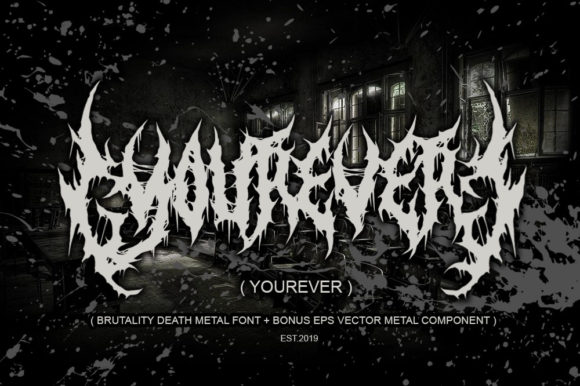
Behold Yourever Font, the Blackletter typeface that will unleash your inner darkness and bring your horror and metal designs to life! Picture this: your designs adorned with Yourever's sharp edges and menacing curves, evoking an atmosphere that's both spine-chilling and captivating. Let the power of Yourever's dark strokes and wicked details transport your audience to a realm of untold horror and heavy metal madness.
With Yourever, your designs will command attention, demanding respect and inspiring awe. Your words will drip with macabre elegance, sending shivers down the spines of those who dare to read them. From album covers to t-shirt designs, from posters to flyers, Yourever is your ultimate weapon to create visually stunning, hauntingly beautiful artwork that will leave an unforgettable impact.
But it's not just about the aesthetics. Yourever is also a highly functional font, designed to deliver impeccable readability even in the most extreme sizes. Whether you're crafting a chilling horror novel or a bone-rattling metal album, Yourever ensures that your message comes across loud and clear, leaving no room for misinterpretation.
Imagine the possibilities: a horror movie poster that sends shivers down the spine, a metal band logo that oozes raw power, a t-shirt design that screams rebellion and darkness. With Yourever, you have the power to bring your darkest visions to life, to create designs that capture the essence of fear, darkness, and the macabre.
So step into the shadows, embrace the power of Yourever, and let your creativity run wild. Unleash the beast within, let your dark side shine through, and create designs that will haunt and captivate for years to come. The world of horror and metal awaits your artistic touch.